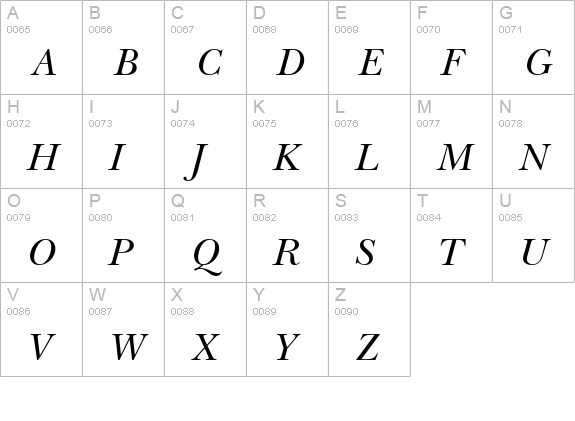
Nebraska Italic Font Details
Nebraska Italic is a distinctive, italic variant in the Nebraska typeface family \xE2\x80\x94 well suited to design and typography projects.
Nebraska Italic font is a sophisticated and elegant typeface that exudes a sense of timeless charm. Its slanted design adds a touch of flair and dynamism to any text, making it perfect for adding a touch of sophistication to your designs. Whether you're working on a branding project, editorial layout, or any other creative endeavor, Nebraska Italic font is sure to elevate your work to new heights. Best of all, Nebraska Italic font is available for free download at FontsMarket.com. This means you can easily access this stunning font without any cost, making it a valuable addition to your font library. Don't miss out on the opportunity to enhance your designs with the beauty and grace of Nebraska Italic font. Download it today and see the difference it can make in your projects!